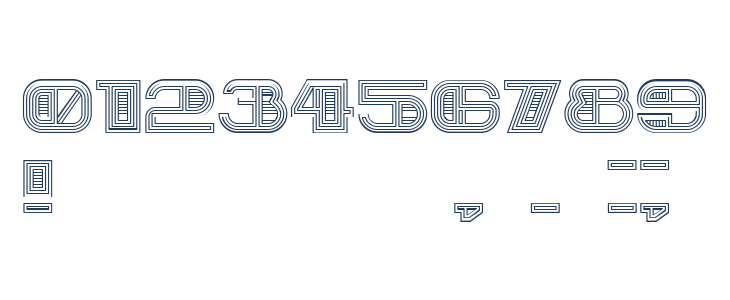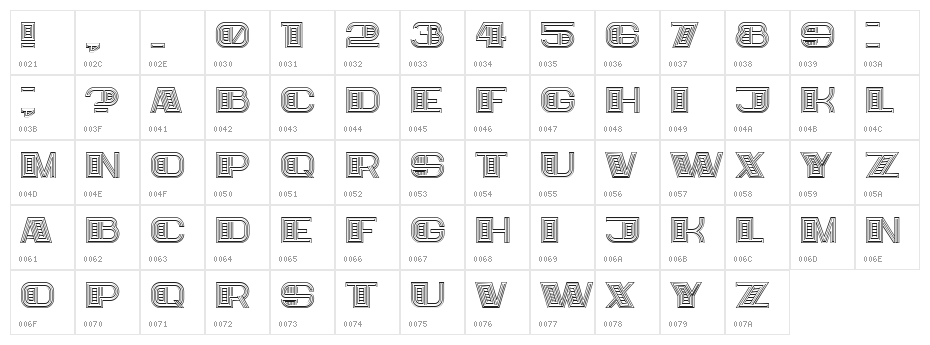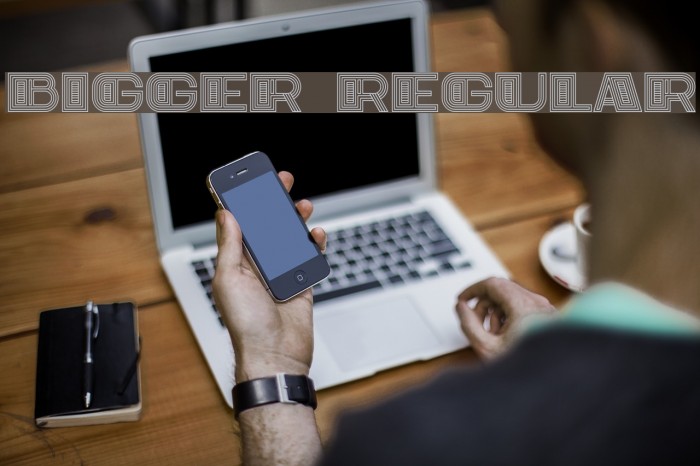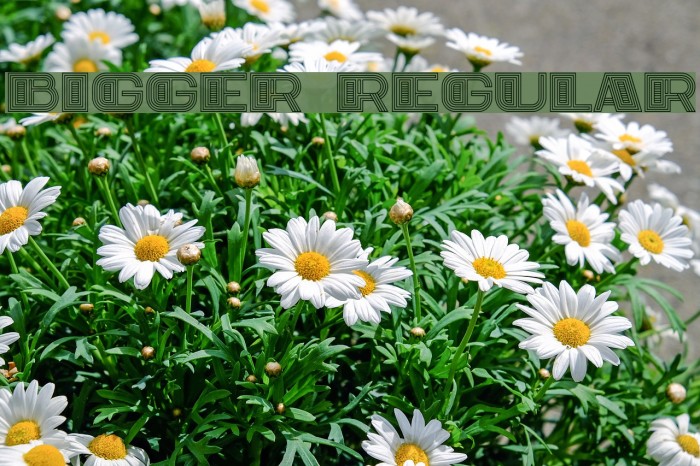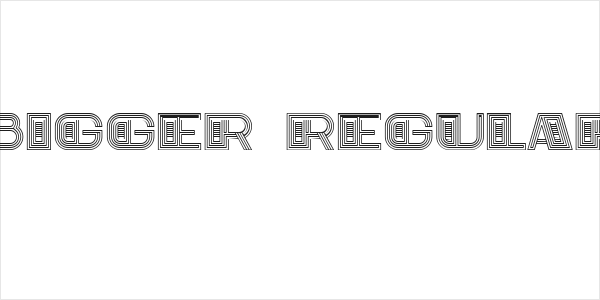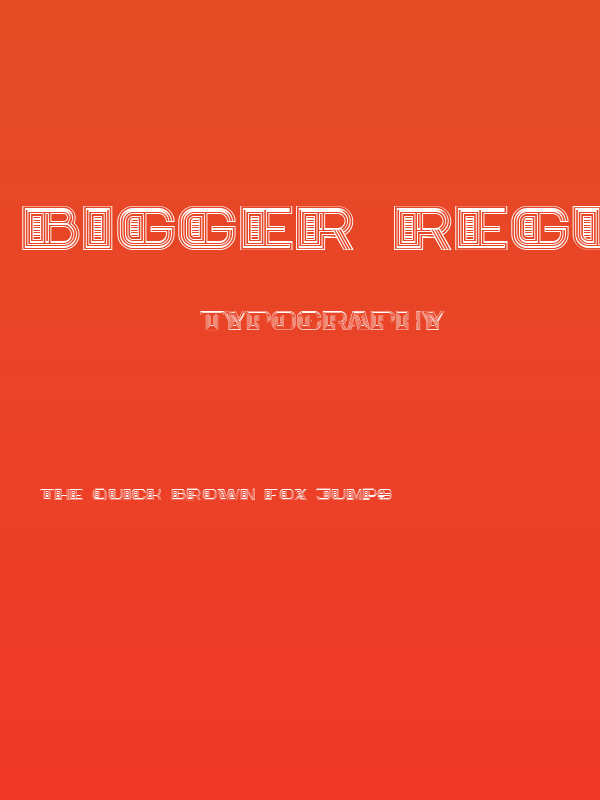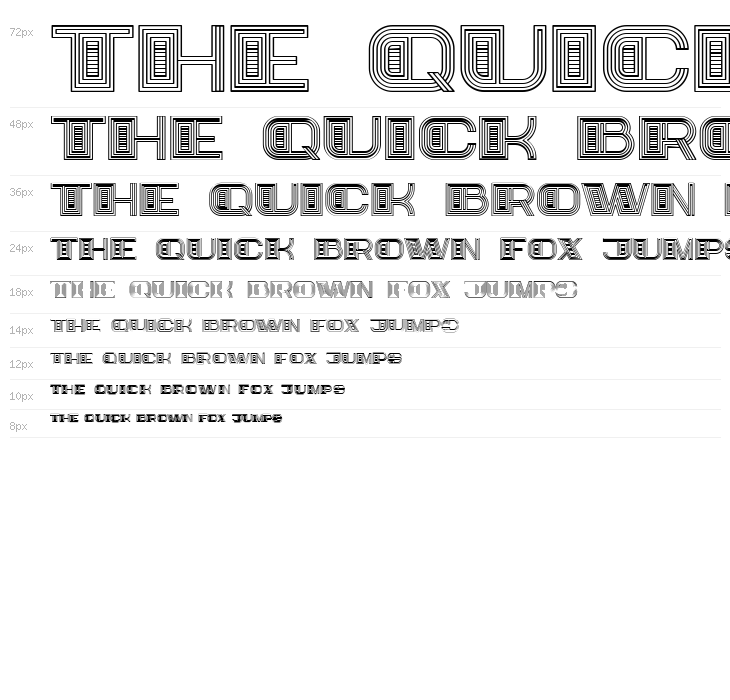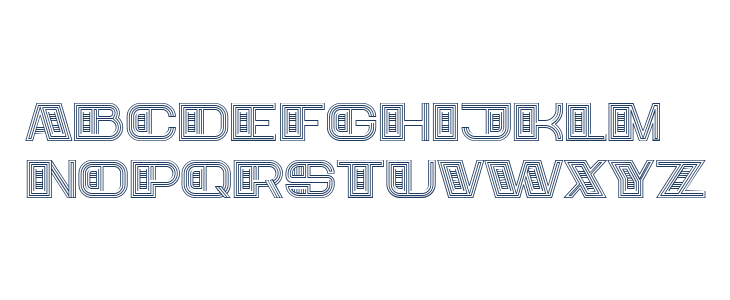
Bigger Regular Font
Bigger Regular Description
This font features a bold, geometric design with a distinct outline style. Each character is composed of multiple parallel lines, creating a layered and dimensional effect. The uppercase and lowercase letters maintain a consistent structure, emphasizing symmetry and balance. Numbers and special characters follow the same design principles, ensuring uniformity across all glyphs. The font's unique appearance makes it stand out, offering a modern and artistic flair suitable for creative projects.
| Proposed Projects | Ideal for posters, logos, branding, and any design project that requires a striking and modern aesthetic. |